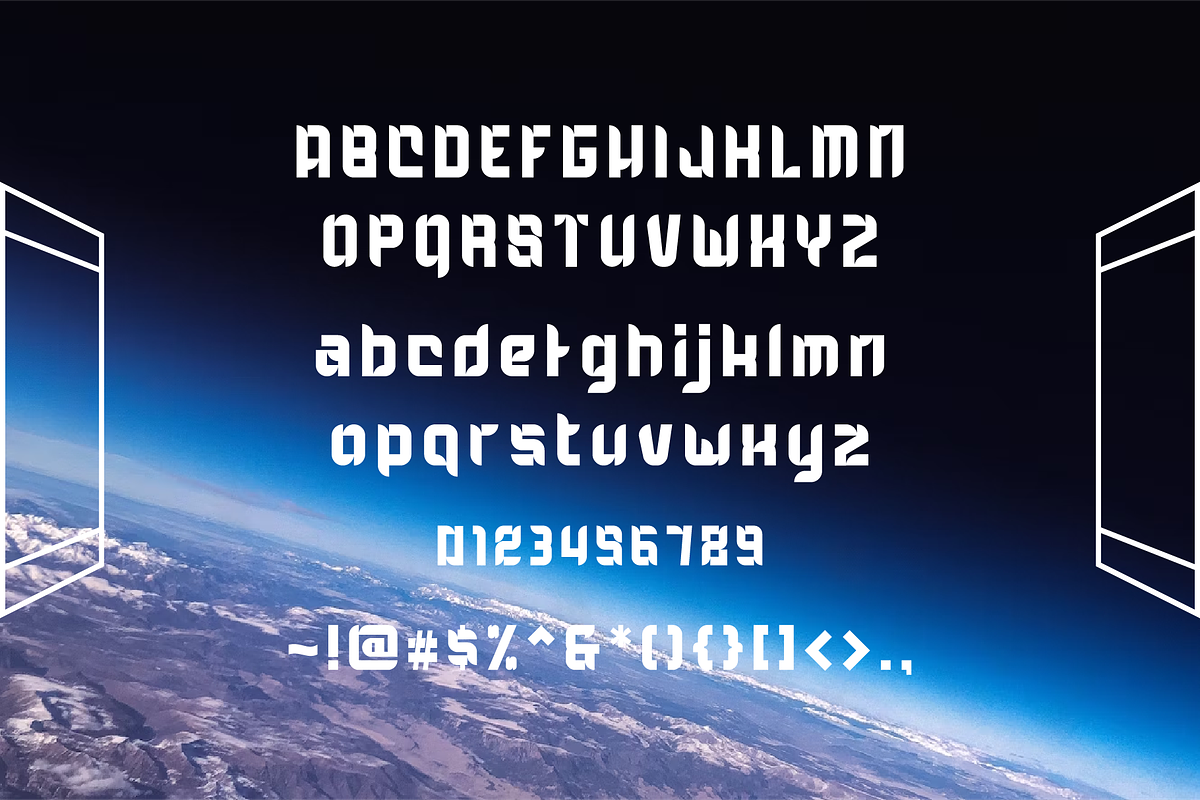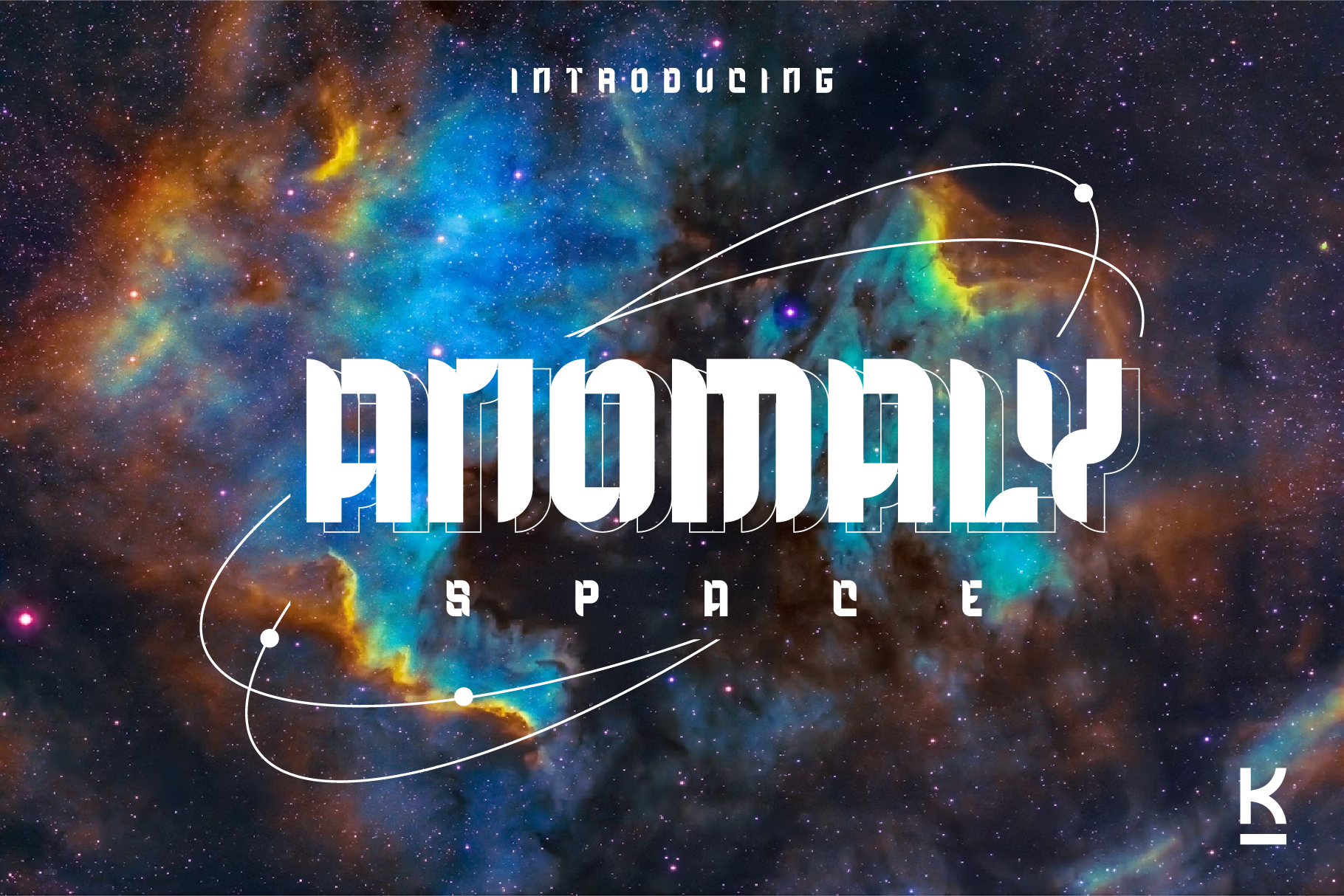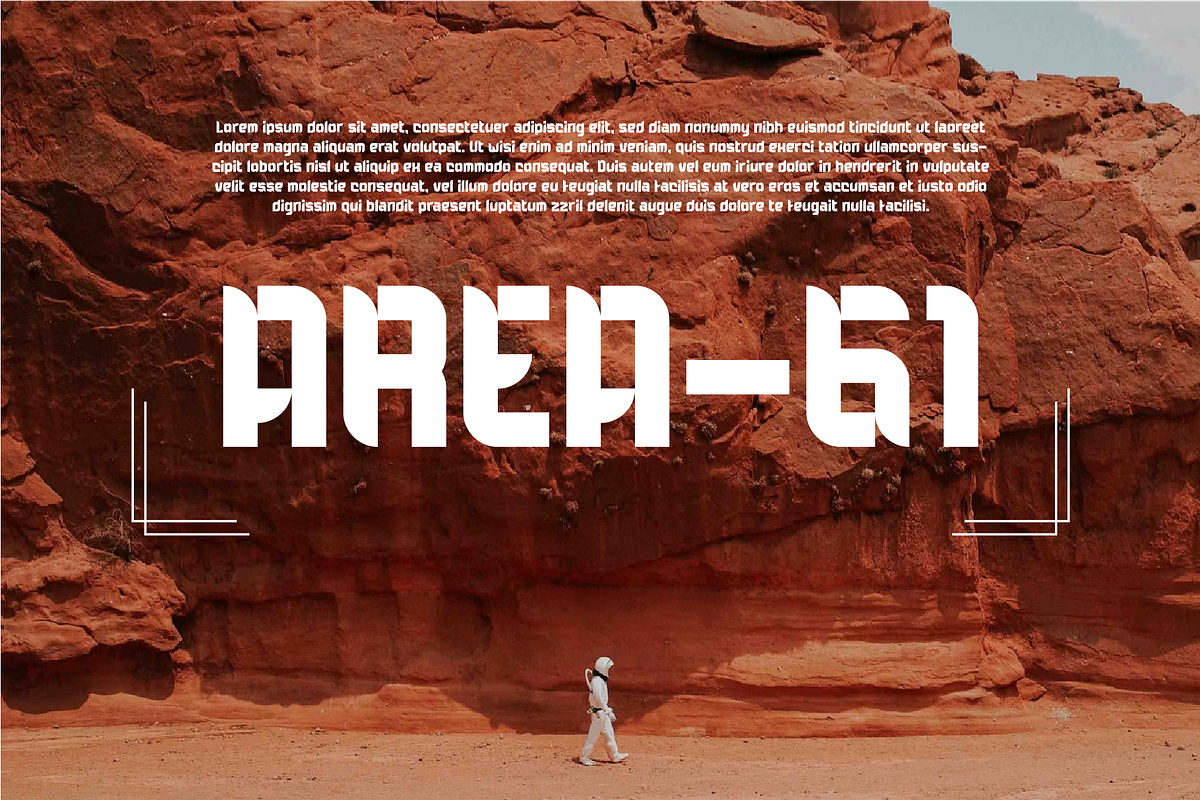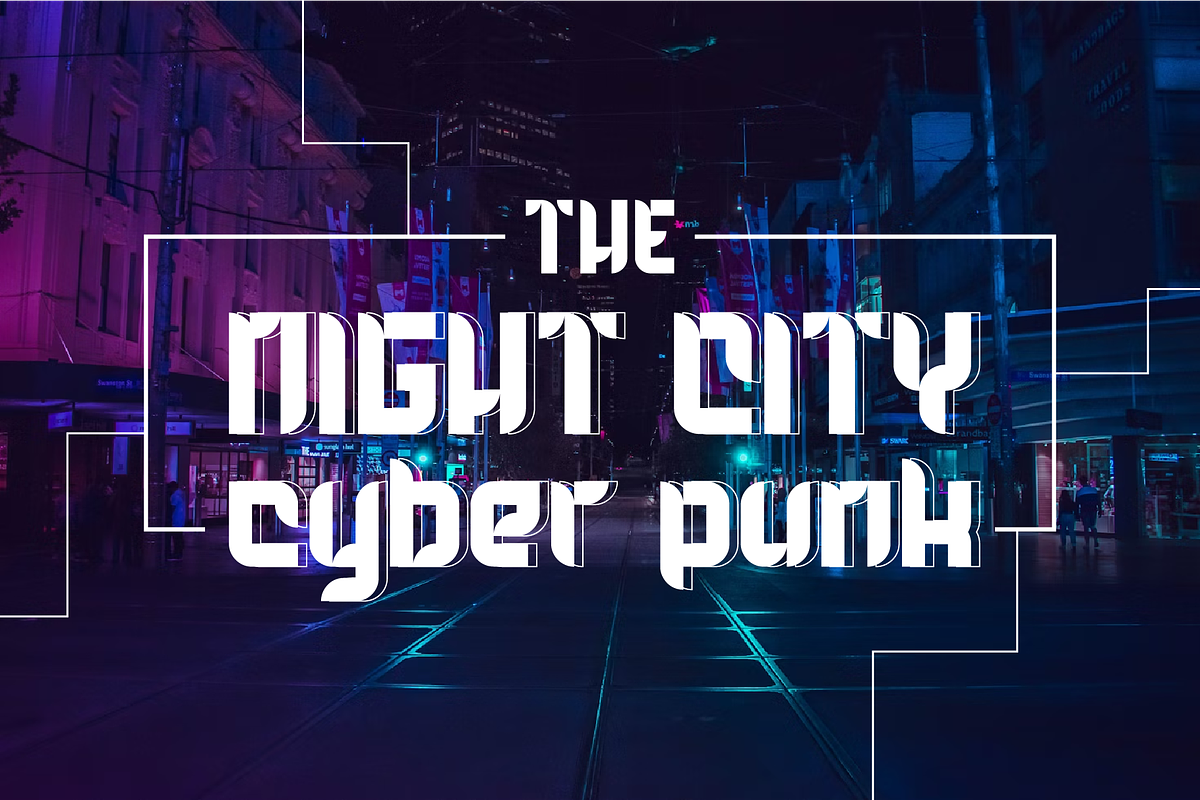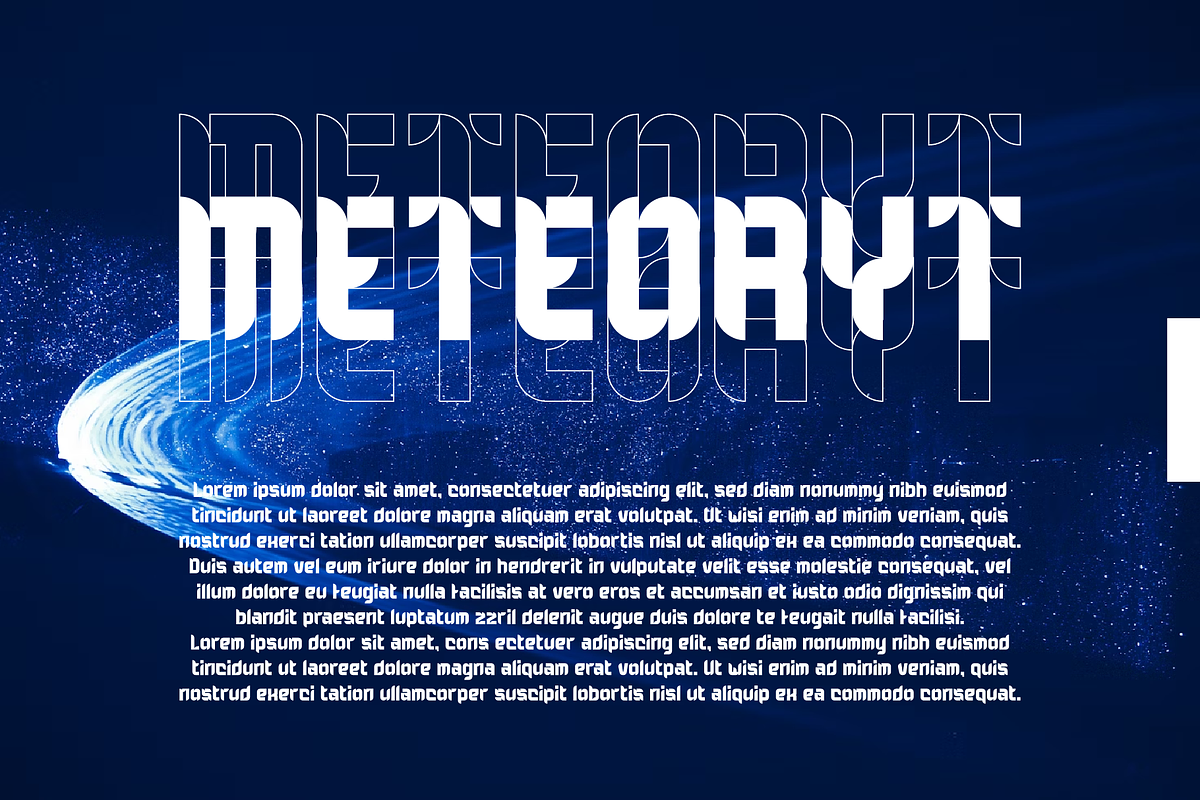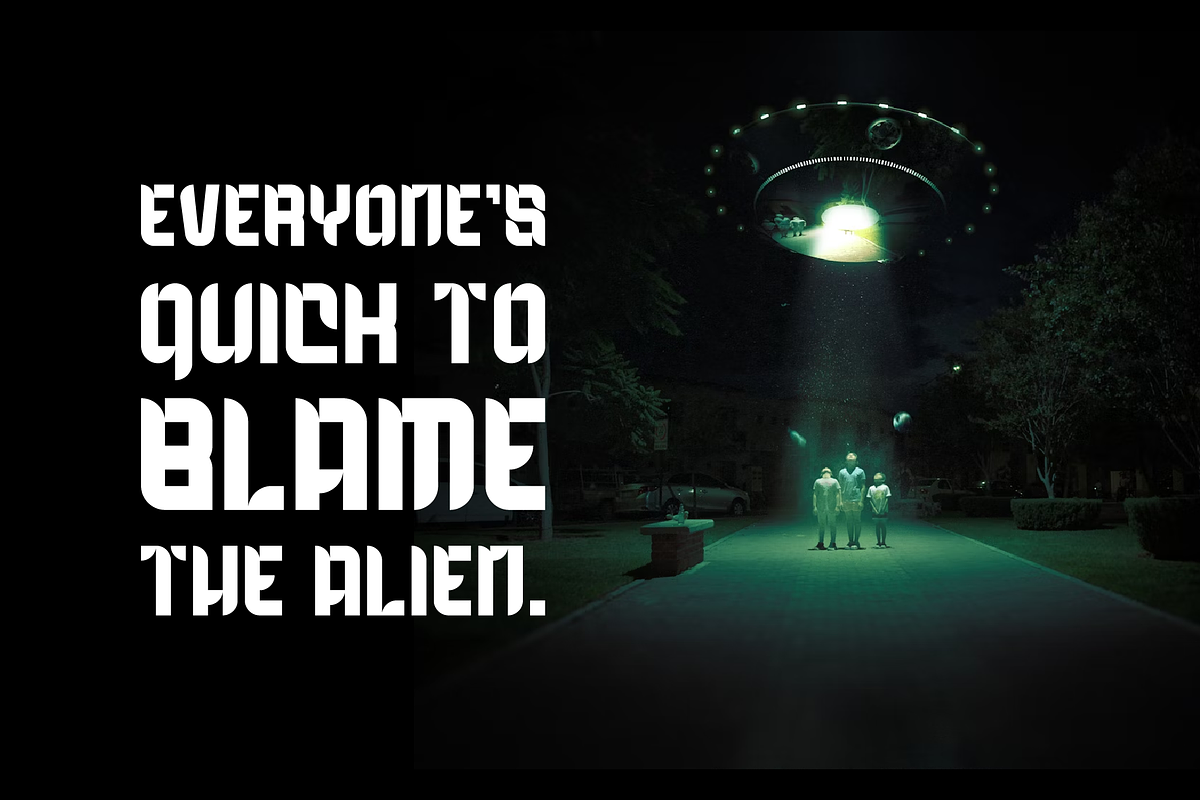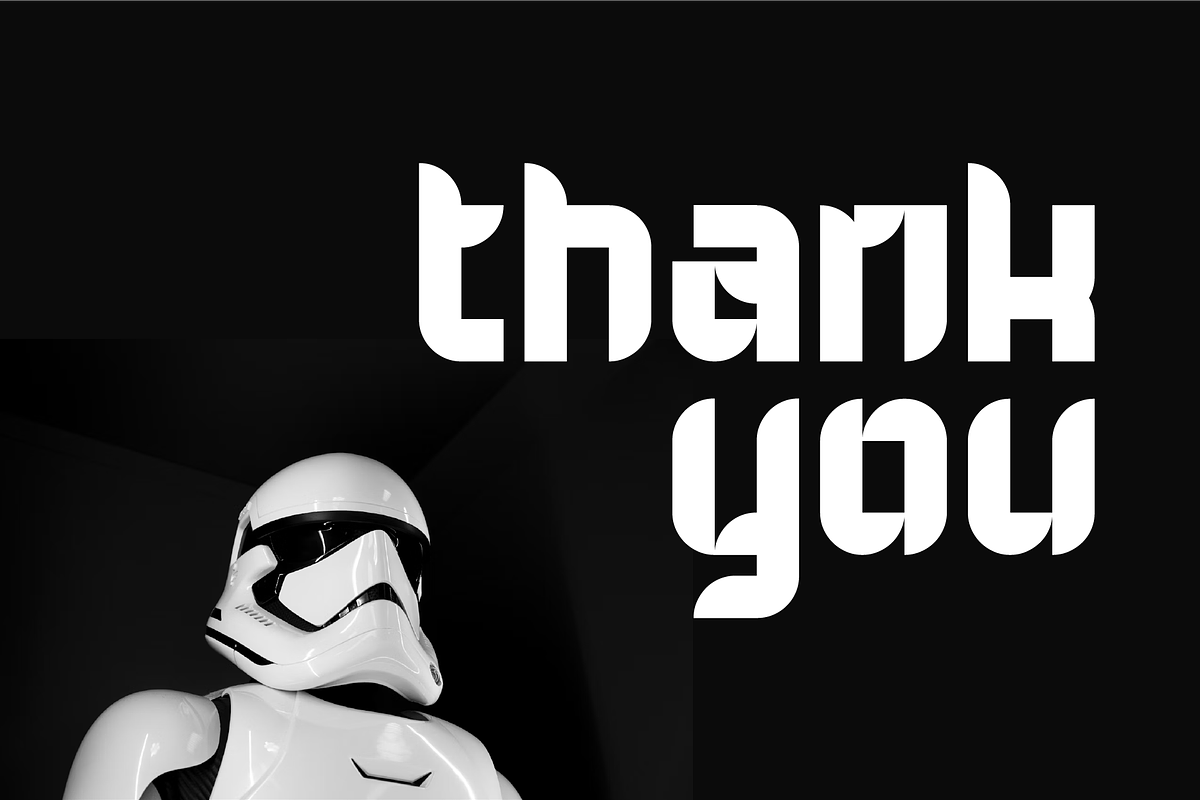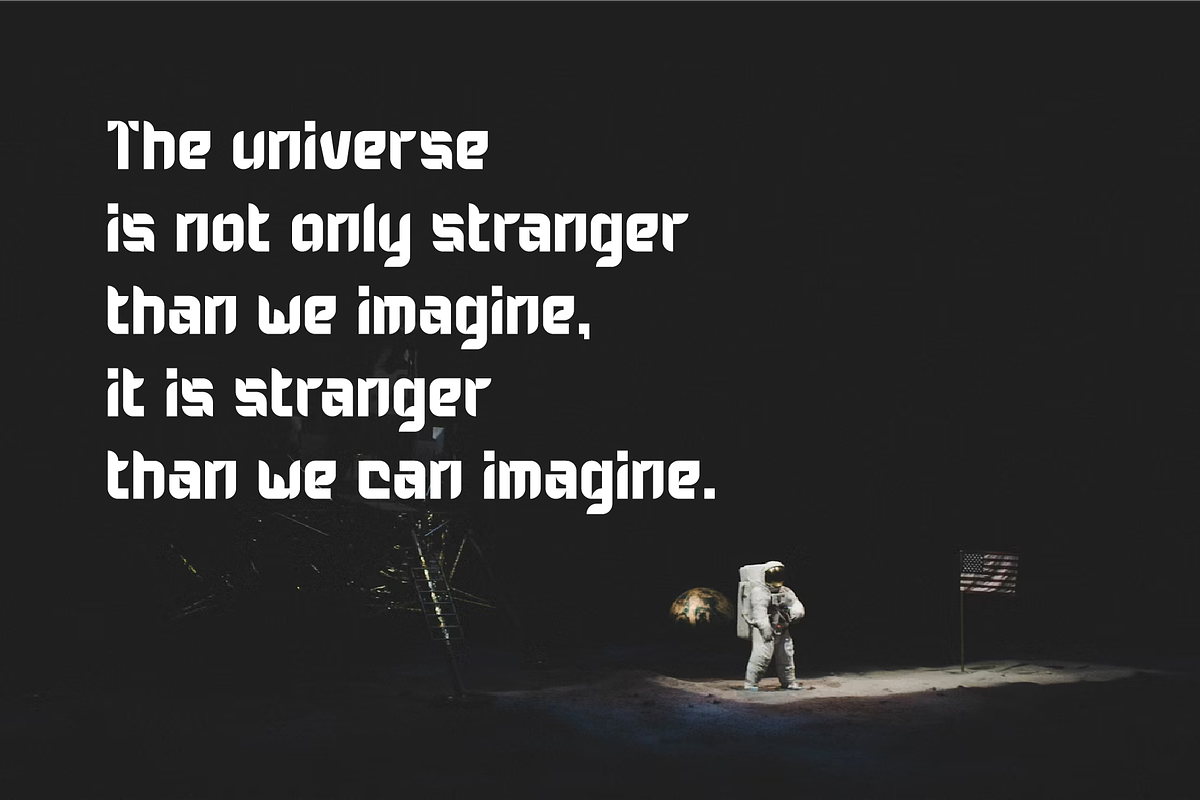
Anomaly Space - Sci-Fi font
Anomaly Space is a cutting-edge typeface that seamlessly blends the essence of technology, the vastness of the galaxy, and the sleekness of modern design. This font is perfect for forward-thinking projects that require a futuristic touch, whether it's for digital interfaces, innovative branding, or creative posters.
- Modern Design: Clean lines and sharp angles give Anomaly Space a contemporary and sophisticated look, making it ideal for any project that aims to make a bold statement.
- Technological Aesthetics: Inspired by the latest in tech trends, this font embodies the precision and innovation of the digital age.
- Galactic Inspiration: Elements of cosmic beauty and the mysteries of space are woven into the design, adding a unique and otherworldly flair to your text.
- Versatile Usage: Perfect for website headers, logos, advertisements, and print media. Anomaly Space is designed to stand out and be memorable.
- Multiple Weights and Styles: Comes in various weights and styles, allowing for versatile application and creative flexibility. Why Choose Anomaly Space?
- Unique Appeal: Stand out from the crowd with a font that captures the intrigue and infinite possibilities of space.
- Professional Quality: Crafted with precision and attention to detail, ensuring high readability and aesthetic appeal in all sizes.
- Creative Potential: Elevate your design projects with a font that sparks imagination and conveys a sense of futuristic adventure.
Transform your designs with Anomaly Space – where technology meets the galaxy in a modern typographic masterpiece. Explore the universe of possibilities and make your text shine with a touch of the extraordinary.